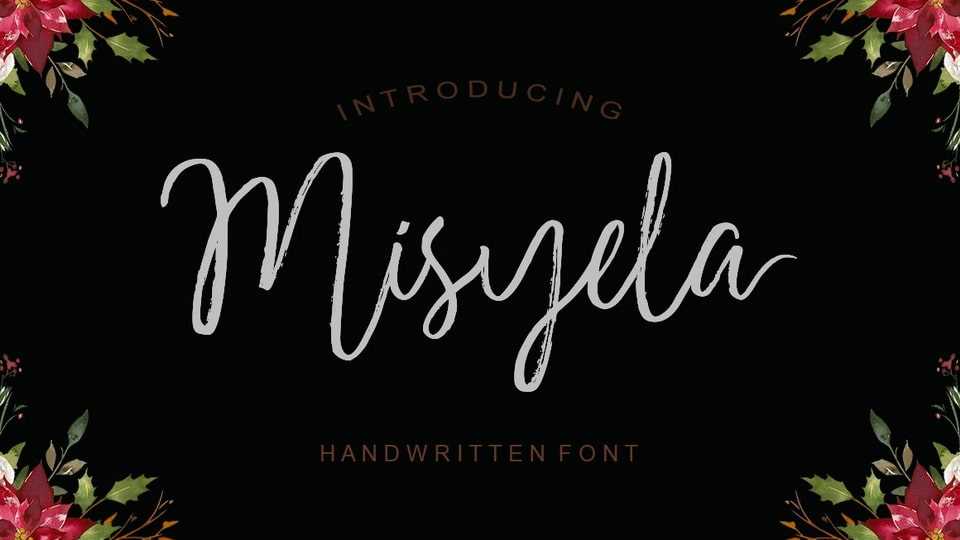
Download Misyela font, a romantic and dainty handwritten typeface. It is PUA encoded which means you can access all of the glyphs and swashes with ease.